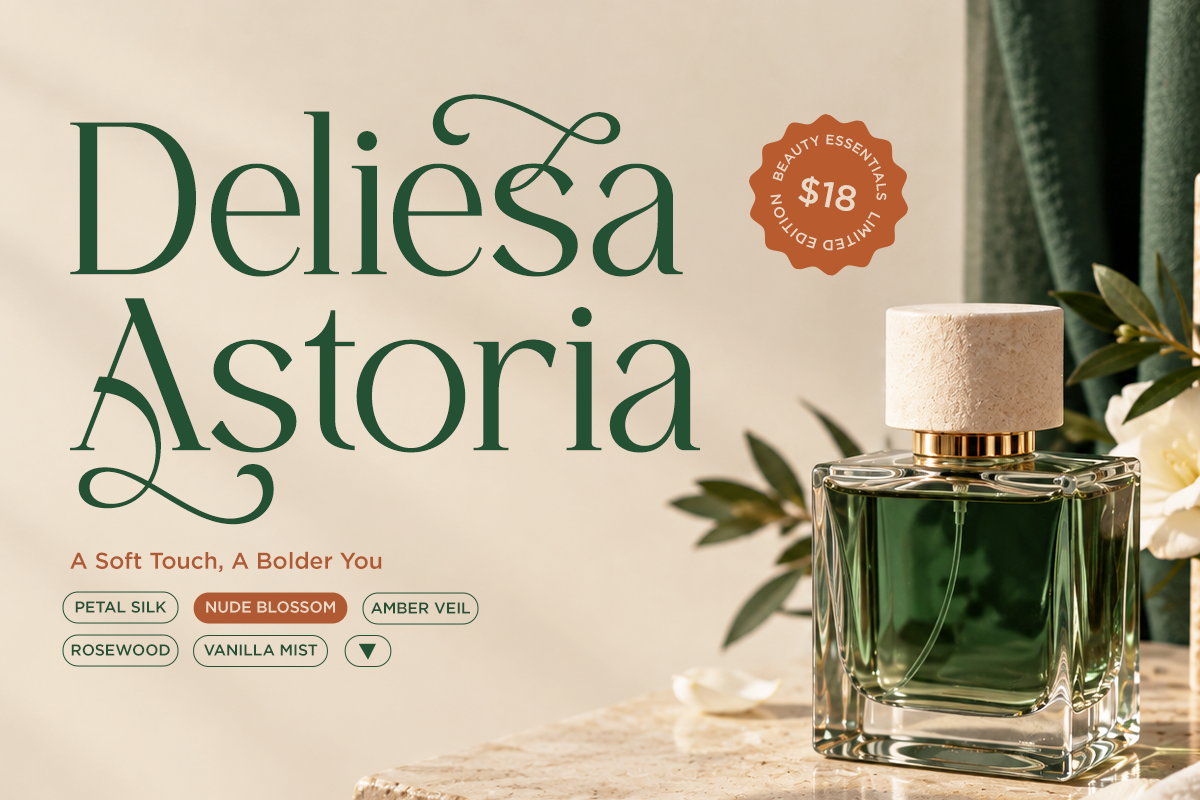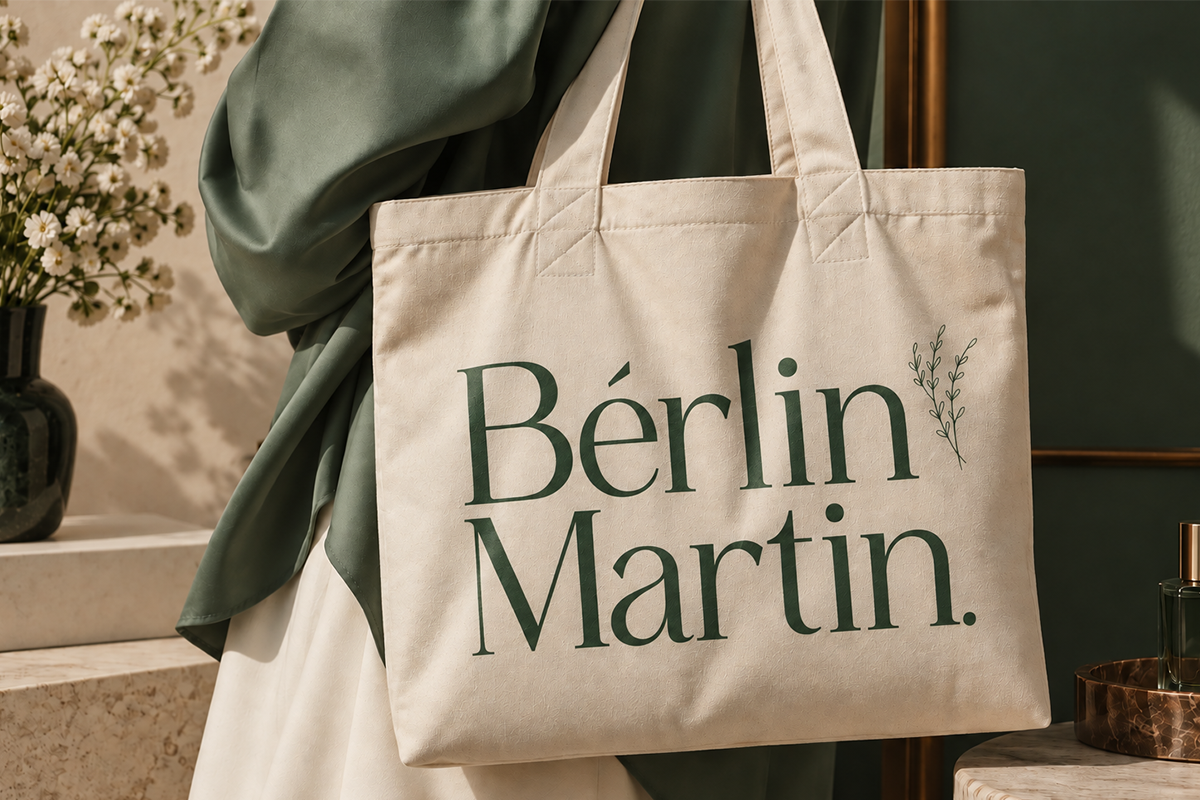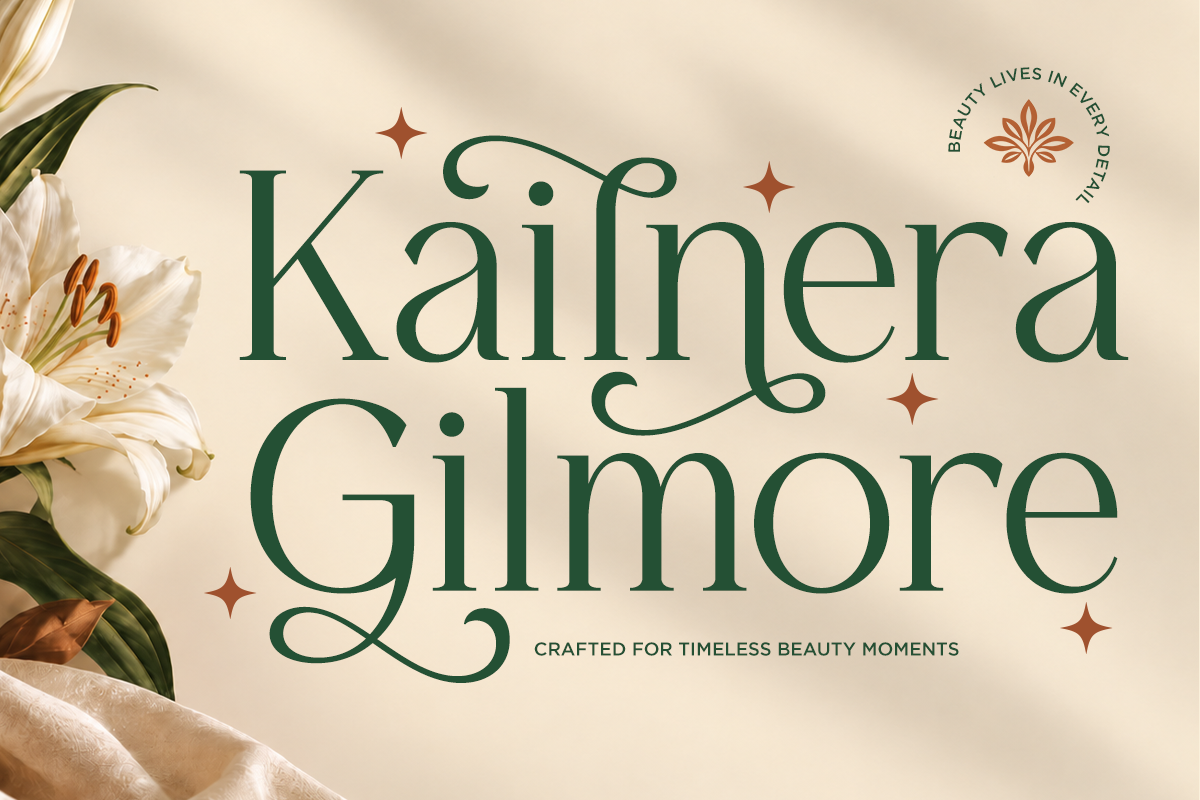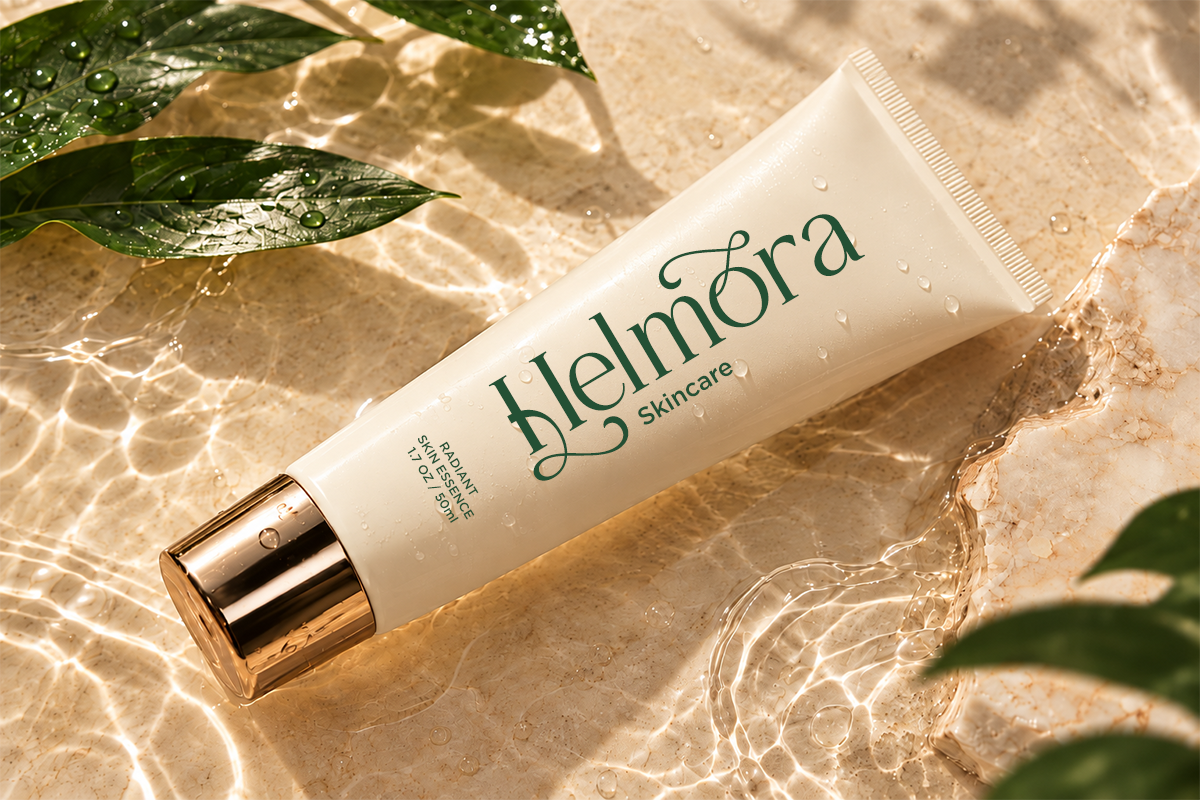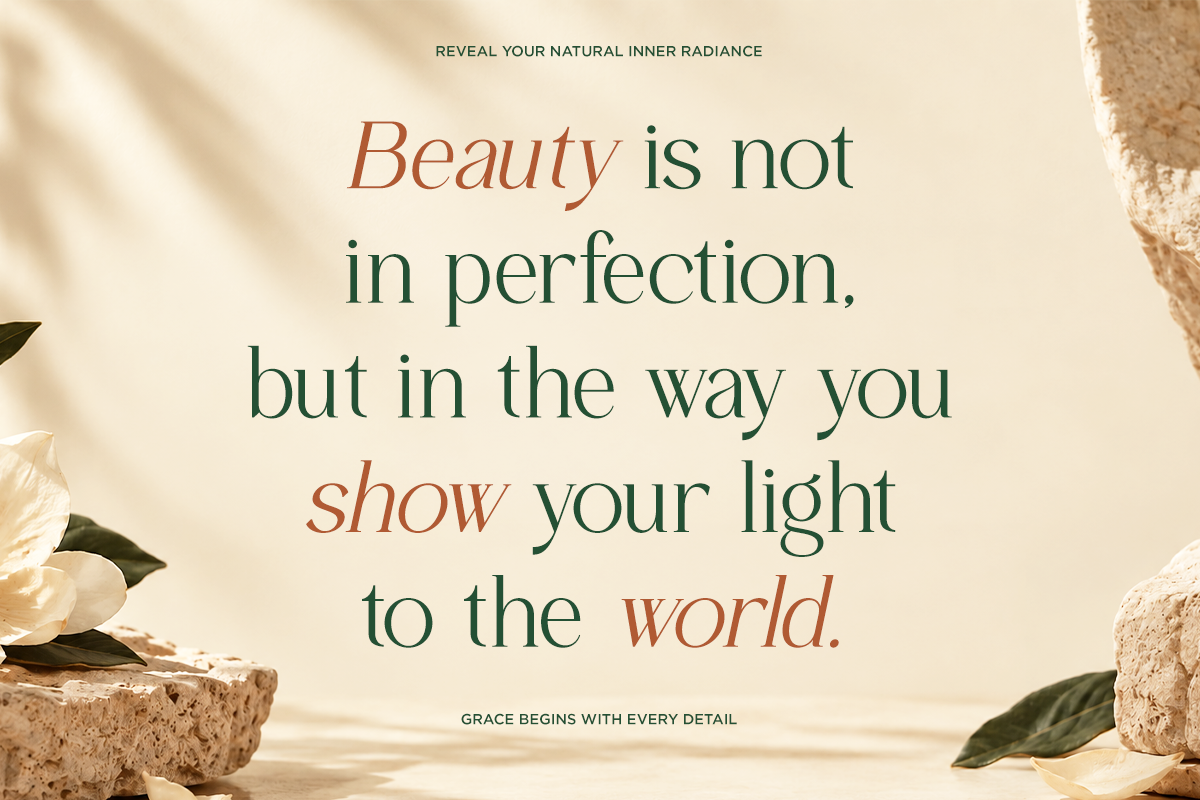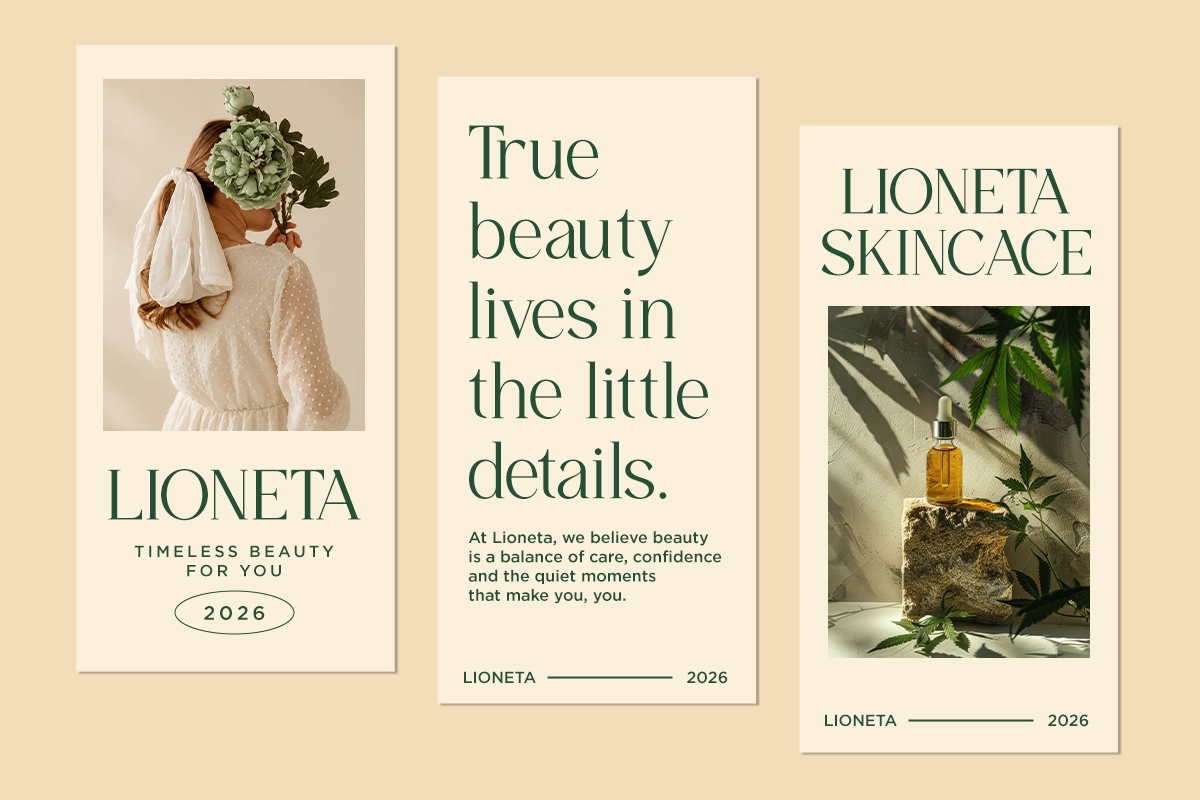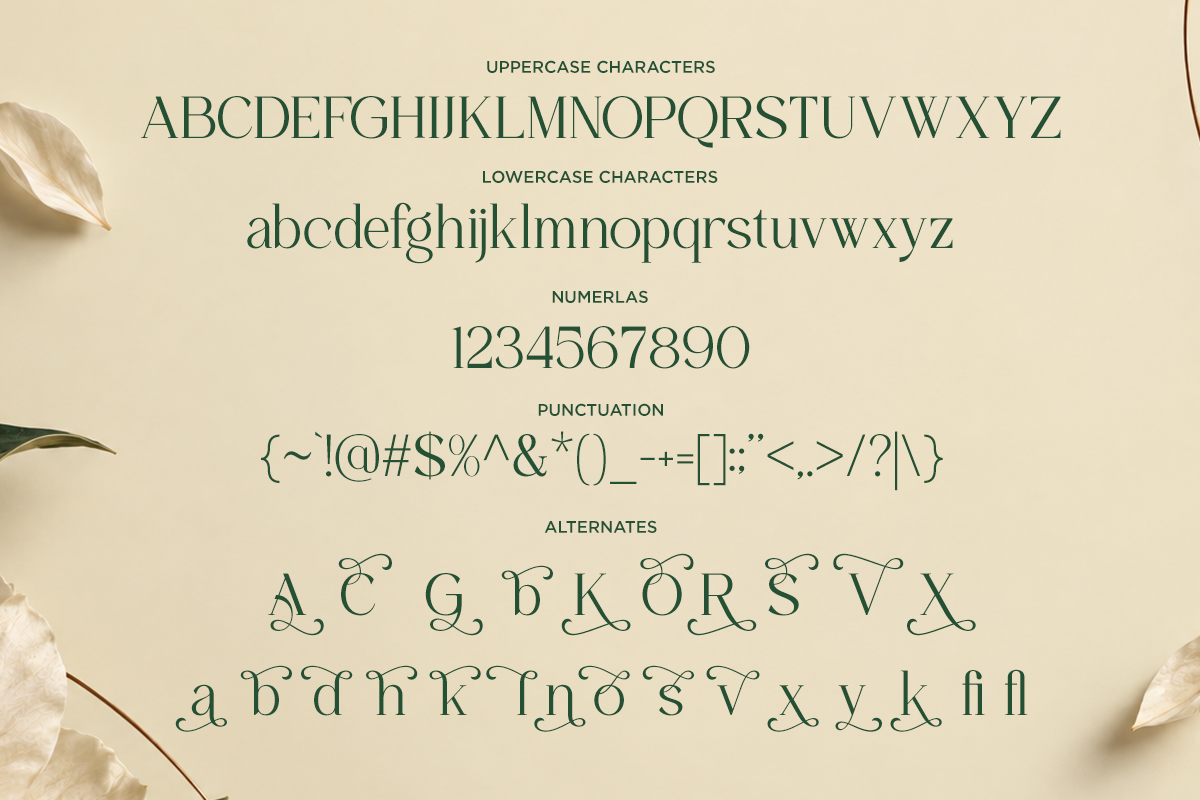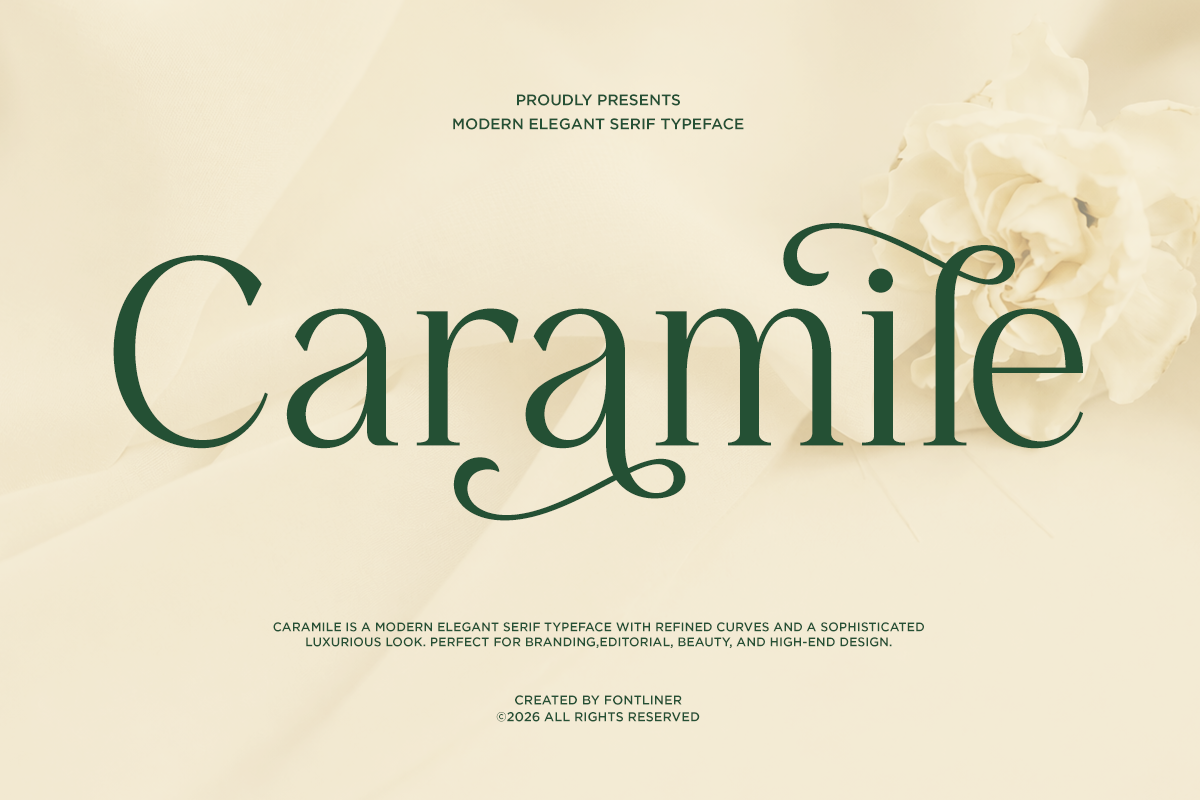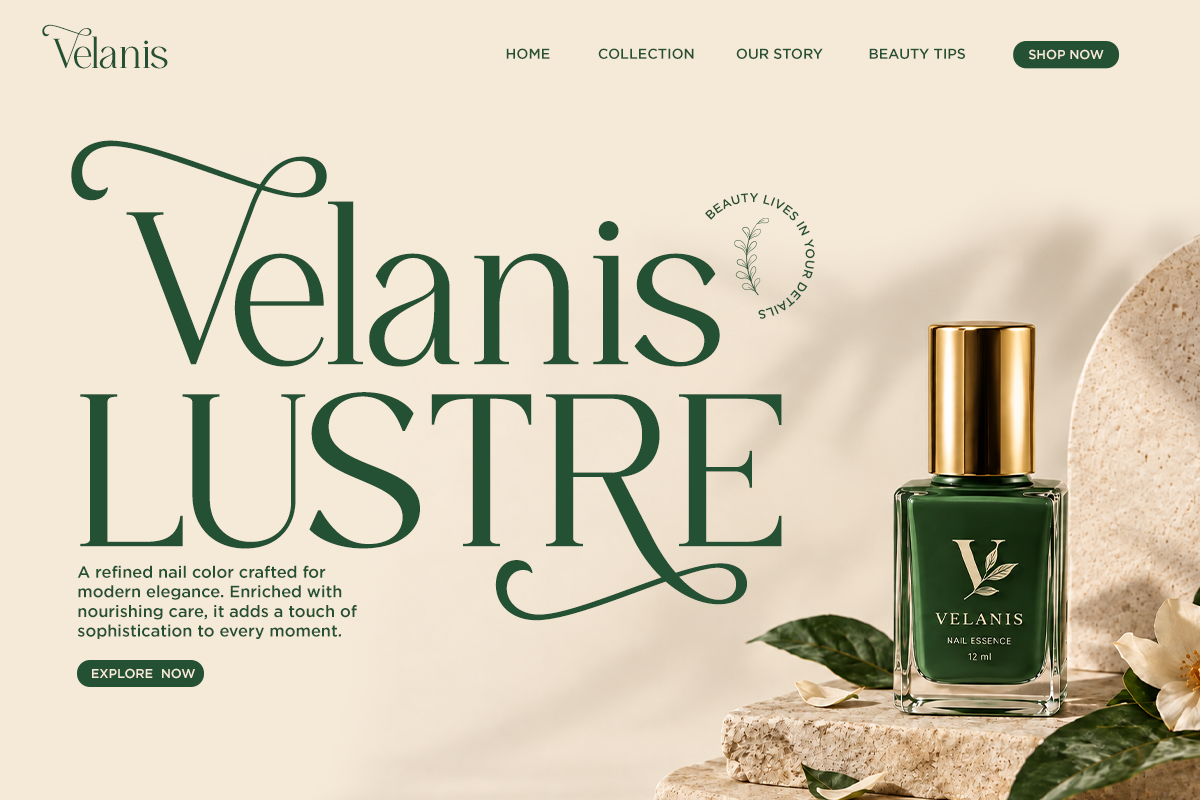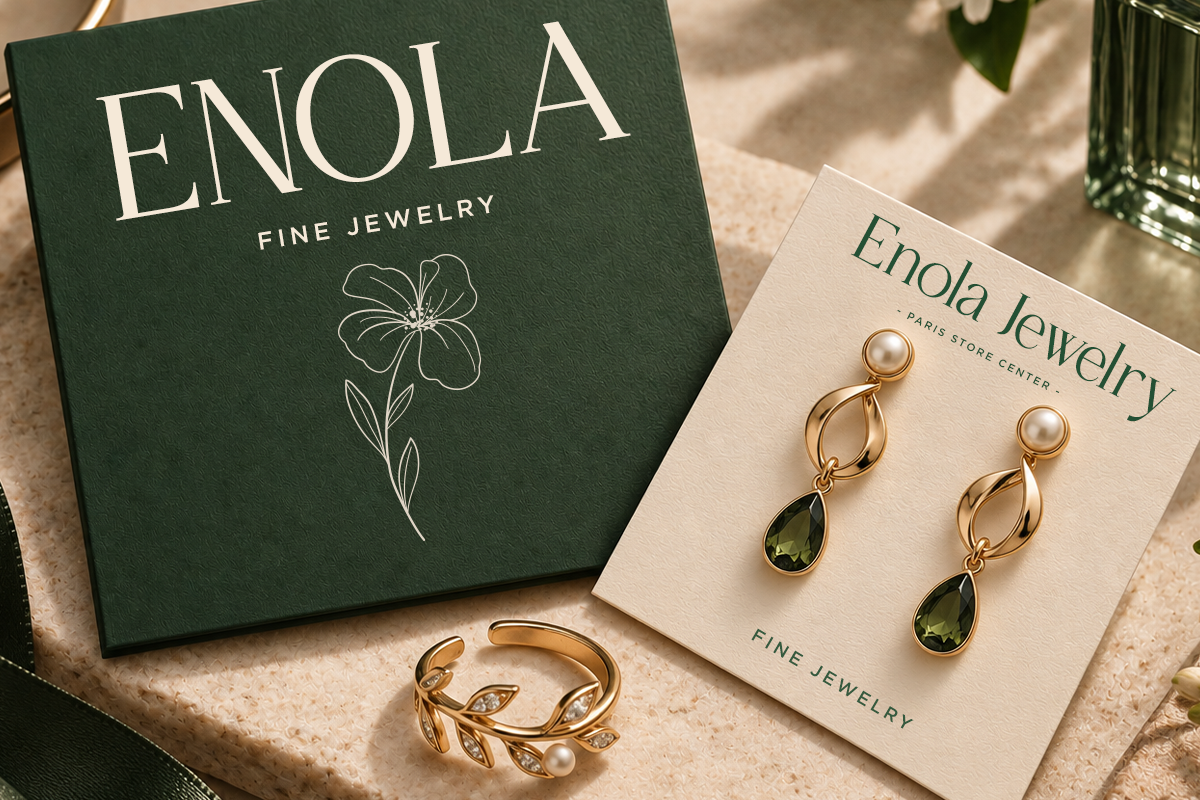
Caramile - Classy Elegant Serif Font
Caramile - classy elegant serif font is a sophisticated serif typeface designed to bring a classy and graceful character to your creative projects. With refined curves, elegant proportions, high-contrast strokes, and distinctive letterforms, Caramile creates a polished and luxurious visual impression.
Perfect for fashion branding, beauty products, skincare, cosmetics, perfume, jewelry, wedding invitations, magazines, editorial designs, logos, packaging, and premium lifestyle projects. Its elegant appearance makes it especially suitable for headlines, brand identities, product labels, social media graphics, and sophisticated advertising designs.
Caramile is a versatile choice for designers who want to create a classy, elegant, stylish, and premium aesthetic while maintaining strong readability and visual character. Use it to add a refined editorial touch to both personal and commercial design projects.
Regular and Italic
Special Alternates
Number, Symbols, and Punctuation